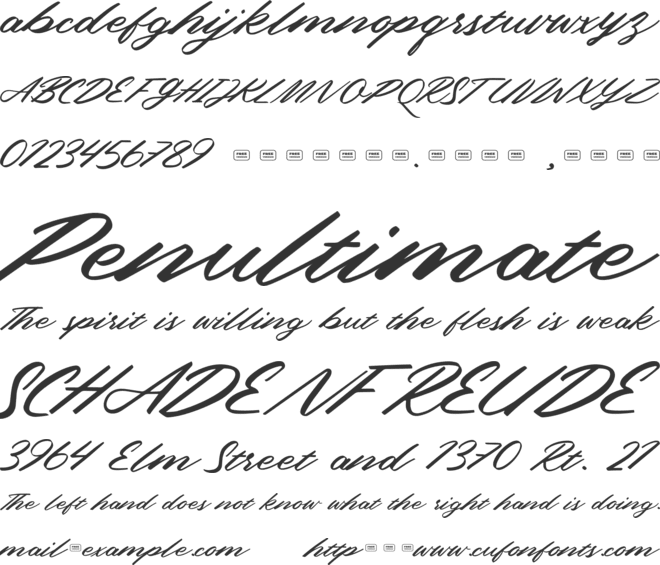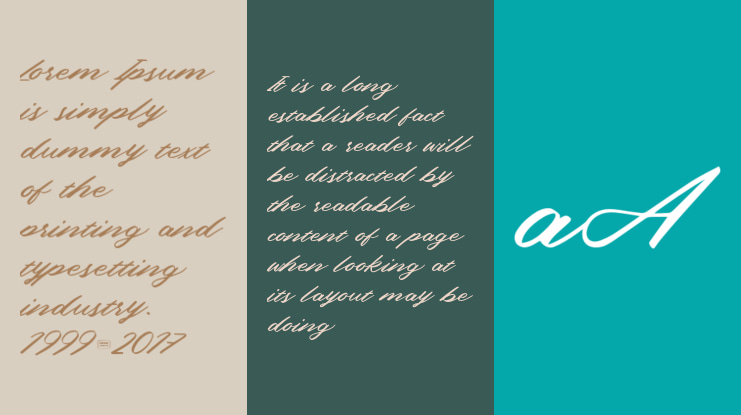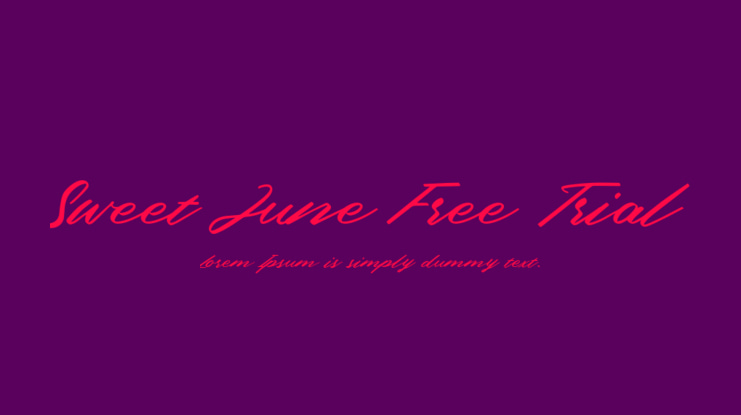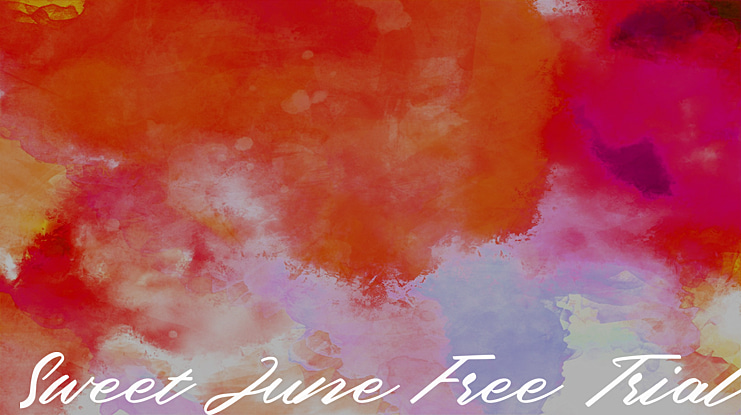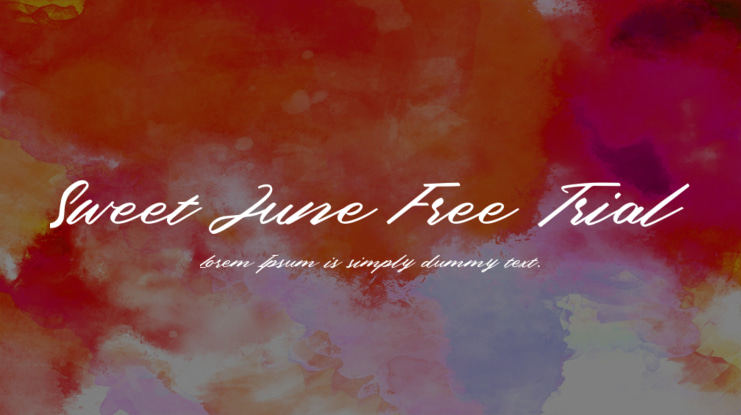
Sweet June Free Trial Font
Sweet June is a lovely script font. It has a natural writing style with a great readability.It’s perfect for adding a natural touch to your luxurious designs.Full Version Download Here :https://typefactory.co/product/sweet-june-lovely-script-font/https://www.creativefabrica.com/product/sweet-june/ref/501262/